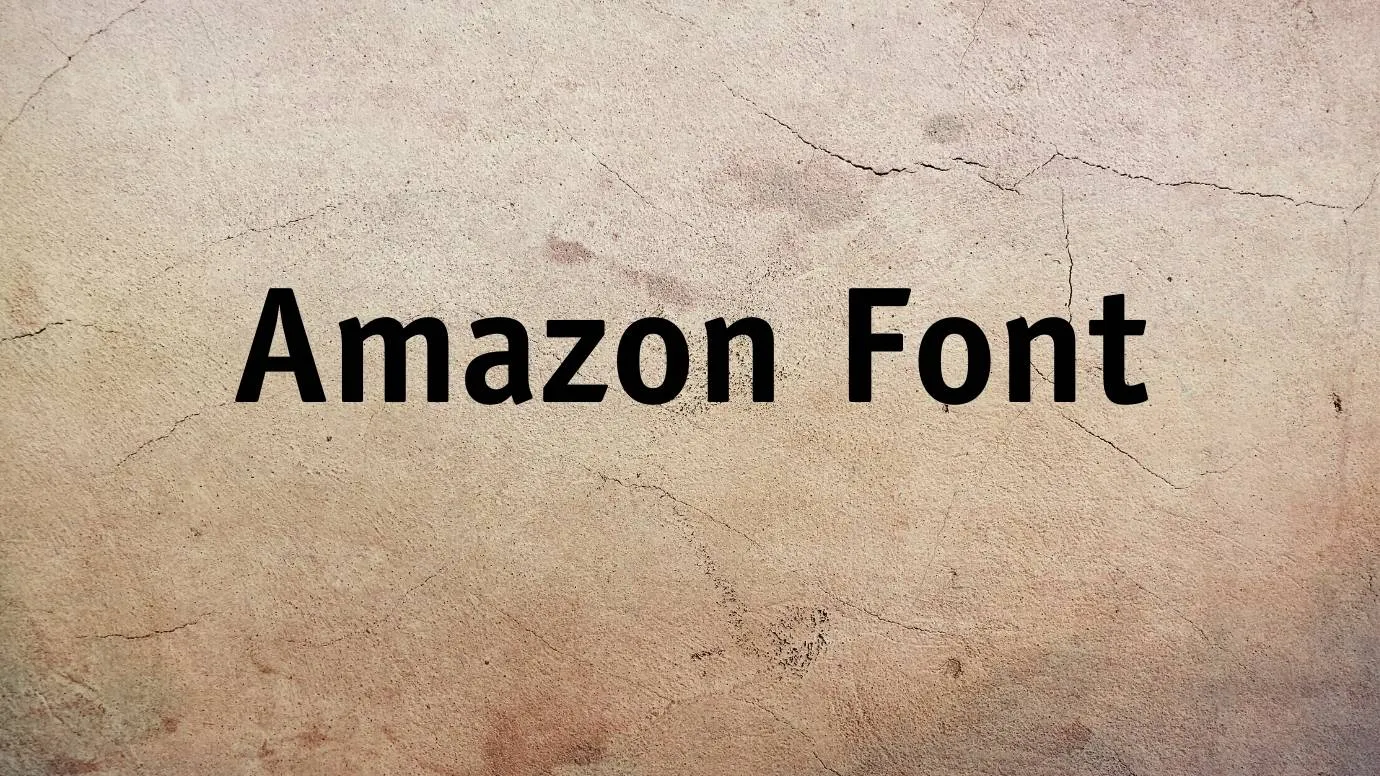
Amazon Font was designed by Dalton Maag. This font is also called Amazon Ember. This app was founded by a famous businessman Jeff Bezos (Born on 12, January 1964). Officina Sans Bold font is used for the creation of this font. This font is available in Sans-serif typeface.
Amazon Font